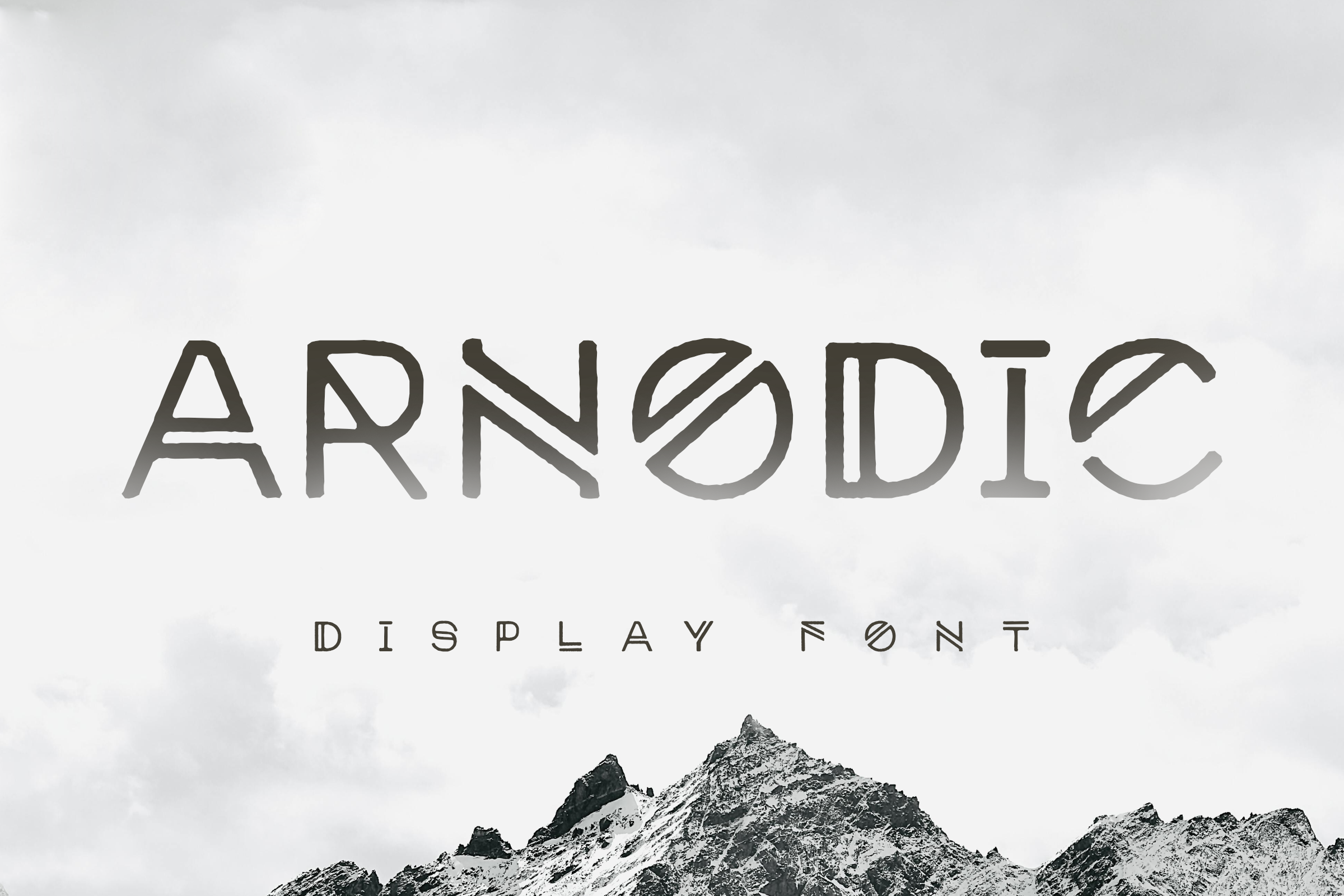
Arnodic - Display Font
Arnodic is a Nordic-inspired display typeface that combines ancient rune aesthetics with clean, modern geometry. Its bold, carved letterforms bring a raw, elemental feel to any design.
This font includes uppercase and lowercase characters, numbers, punctuation, and multilingual support for 57 languages. You'll also find unique alternates and stylistic glyphs for added versatility.
Perfect for branding, packaging, signage, and editorial projects, Arnodic adds sharp personality and minimalist edge to your creative work.